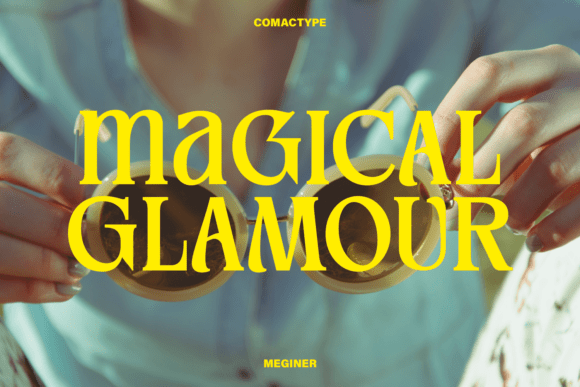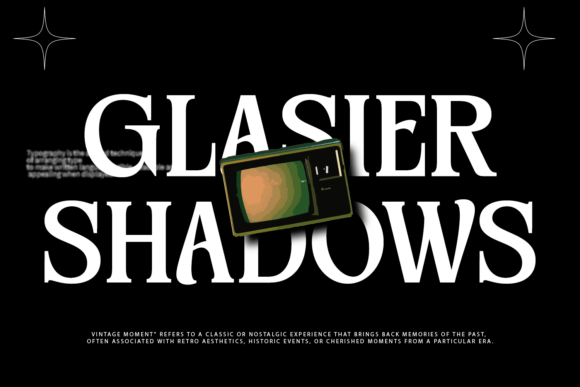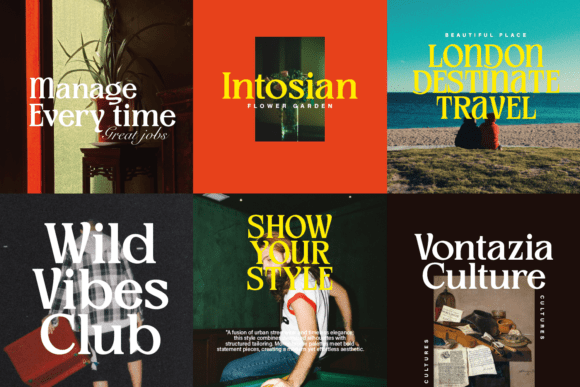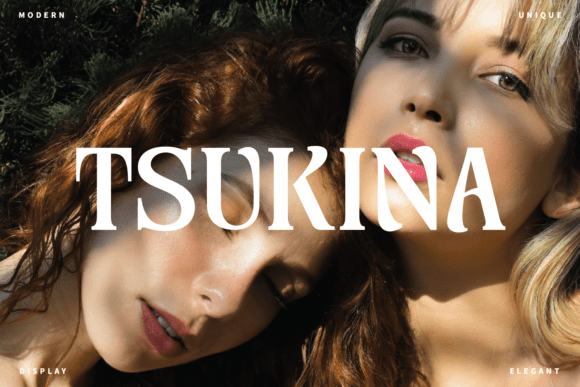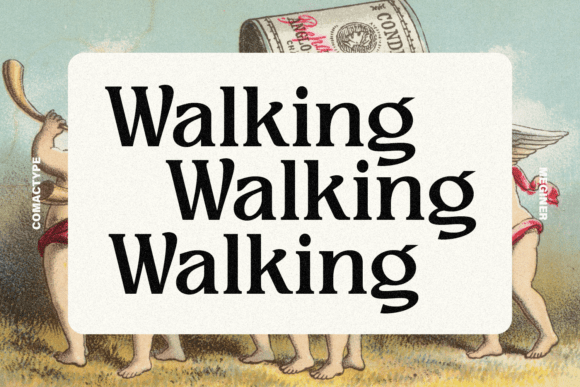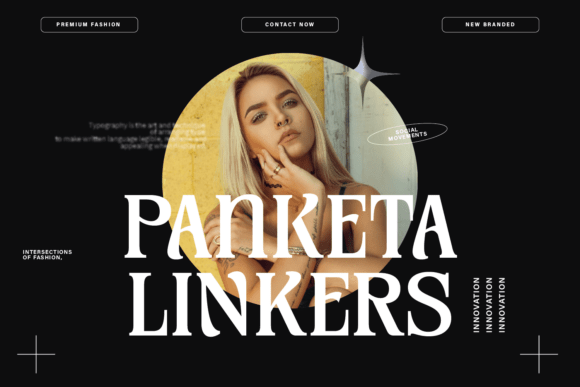
Introduction to Meginer Nineties Font
Remember the rush of excitement you felt when working on your first design project, pouring your heart and soul into every detail, from the color palette to the typography? That same thrill is what drives designers to seek out the perfect font to elevate their work. For those who yearn to capture the essence of the 90s in their creative projects, we’re excited to introduce you to Meginer Nineties Font – a stunning display serif font that’s about to become your new go-to design resource.
Designed by Comac Type, this high-quality font combines classic elegance with contemporary energy, making it an ideal choice for premium branding, sophisticated editorials, and eye-catching posters. With its bold letterforms and graceful curves, Meginer Nineties Font is ready to bring a dramatic and charismatic touch to any visual project, whether you’re working on a free download or a high-stakes commercial campaign.
What sets Meginer Nineties Font apart is its exceptional versatility, offering a dynamic set of uppercase and lowercase letters, unique alternates, and ligatures. This means you can experiment with different styles and arrangements to create a truly one-of-a-kind visual identity – perfect for designers who crave a little extra flair in their work.
Key Features of Meginer Nineties Font
- Unique Retro Style: The Meginer Nineties Font features a distinctive retro aesthetic, making it perfect for creative projects that require a nostalgic feel.
- Perfect for Creative Projects: The Meginer Nineties Font is ideal for creative projects that require a unique and eye-catching font, such as graphic design, web design, and advertising.
Honest Review: Meginer Nineties Font
As a designer, I’m always on the lookout for unique and high-quality design resources to elevate my creative projects. The Meginer Nineties Font caught my attention, and I decided to give it a try. Here’s my honest review.
- High-quality design: The font is well-crafted and has a clear, nostalgic aesthetic that’s reminiscent of the 90s.
- Great for retro-themed projects: The Meginer Nineties Font is perfect for designers working on projects that require a retro or vintage vibe.
- Limited font styles: The font only comes in a few styles, which might limit its versatility in certain design scenarios.
- Not suitable for modern designs: While the font is great for retro-themed projects, it might not be the best choice for modern or minimalist designs.
Overall, the Meginer Nineties Font is a great design resource for designers who want to add a nostalgic touch to their projects. While it has some limitations, its high-quality design and transparent background make it a valuable asset for any design library.
Tips for Getting the Most Out of Meginer Nineties Font
To get the most out of the Meginer Nineties Font, experiment with different font sizes, colors, and styles to create a unique visual identity for your design. You can also combine the font with other design resources, such as graphics and images, to create a cohesive look.